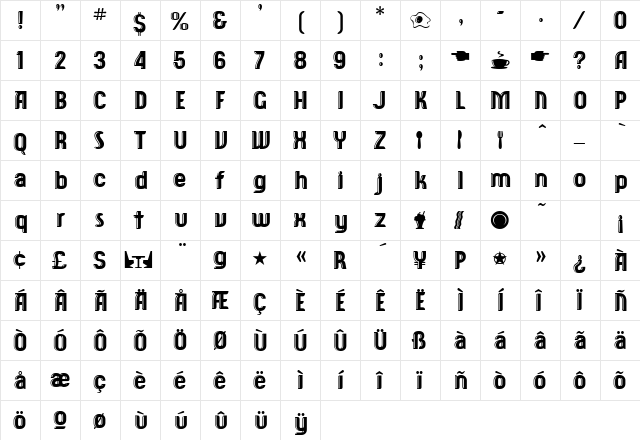
Hf American Diner Inline Regular
Design Context for Hf American Diner Inline Typeface
Hf American Diner Inline is built around its visual character rather than neutral utility — its distinctive forms are designed to make an impression at display sizes.
Font Pairing: Pair with a clean neutral sans-serif for body copy to let Hf American Diner Inline's character lead without overwhelming the composition.
Pro Tip: Treat Hf American Diner Inline as the centrepiece of your typographic hierarchy. One strong heading set in a decorative face can carry an entire layout.